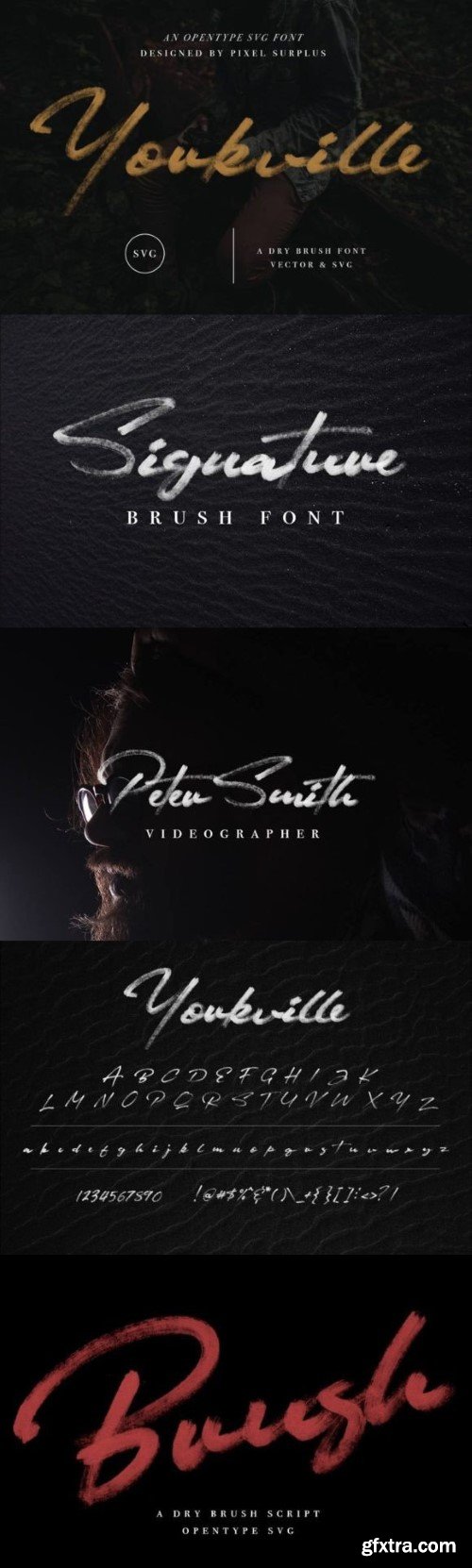
尤金维尔字体
Yorkville SVG is a hand-drawn brush font that features a natural stroke that lends itself perfectly to creating signature-style typographic pieces including quotes, headlines, logos, advertisements & much more!